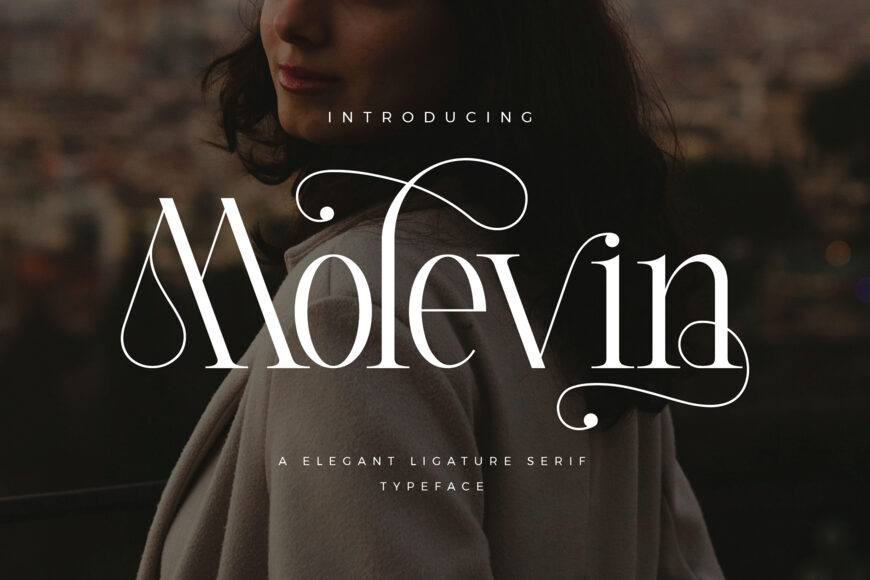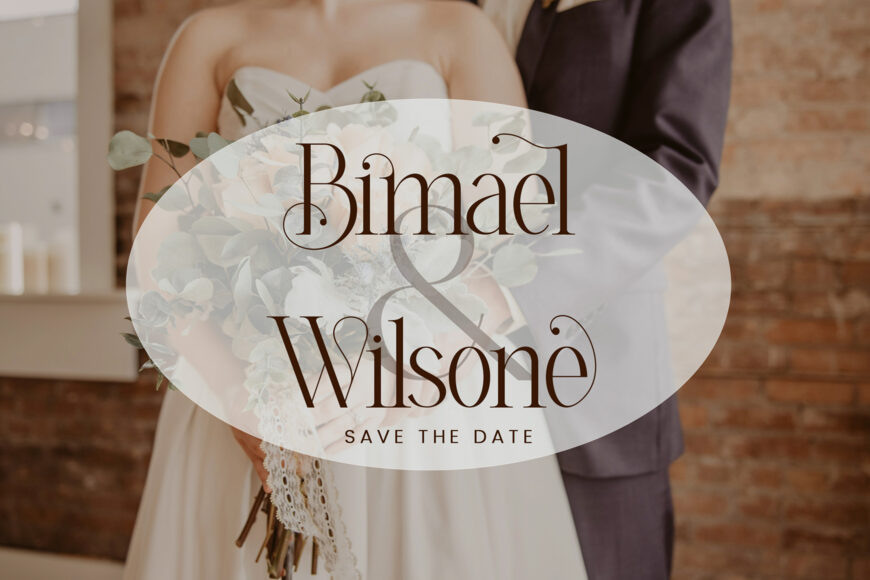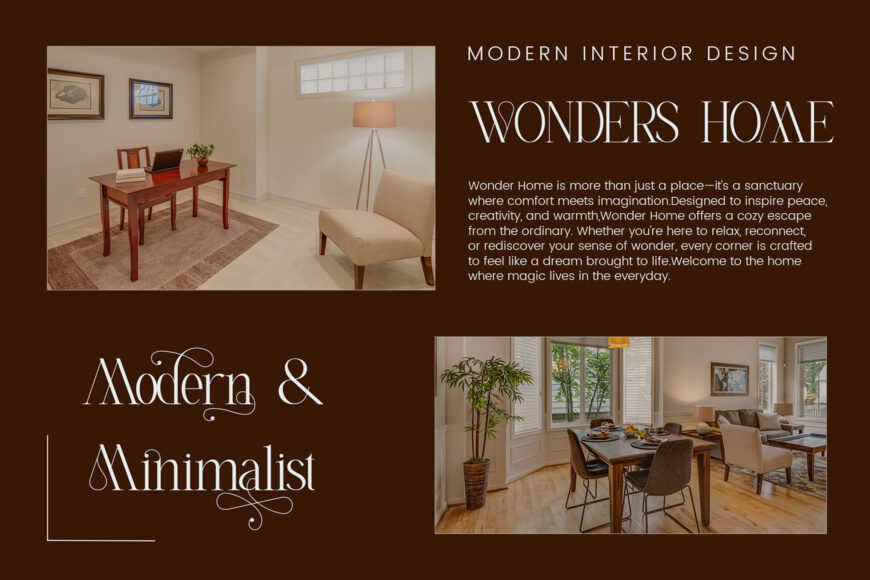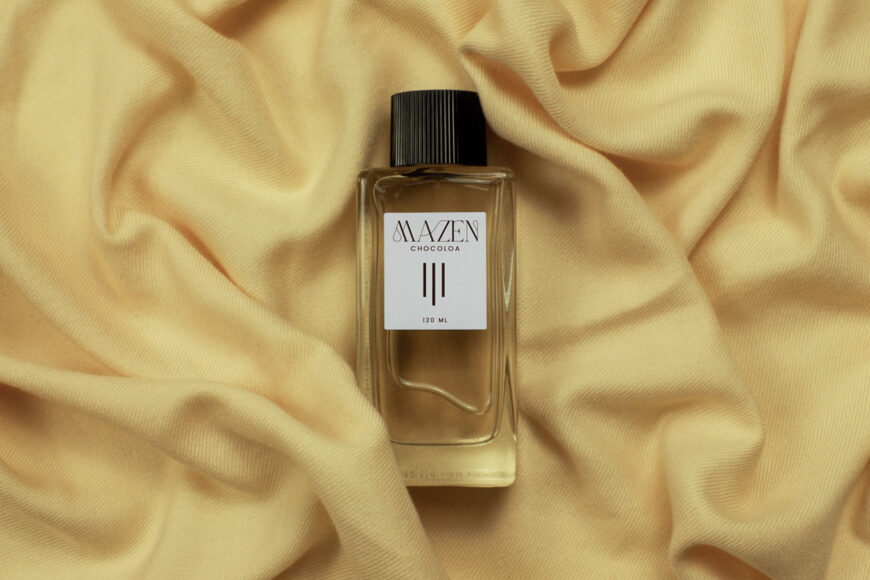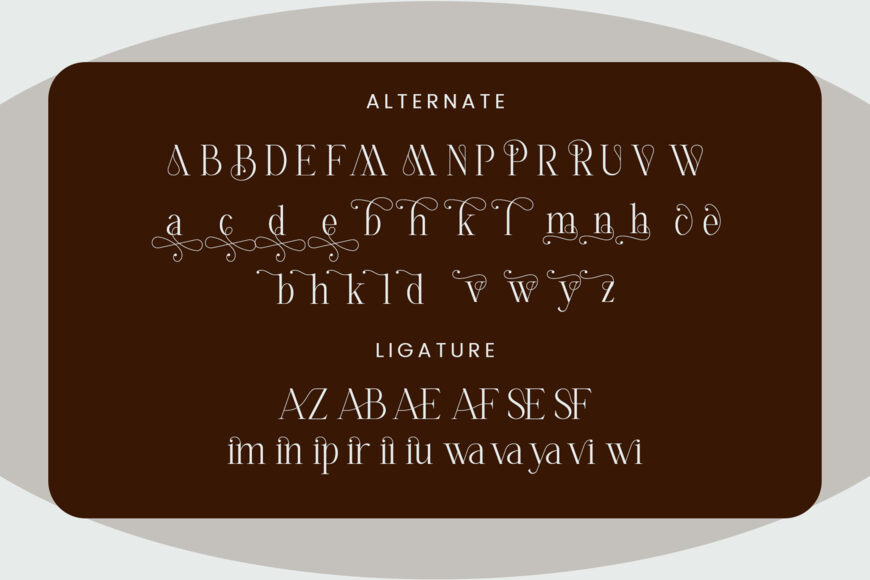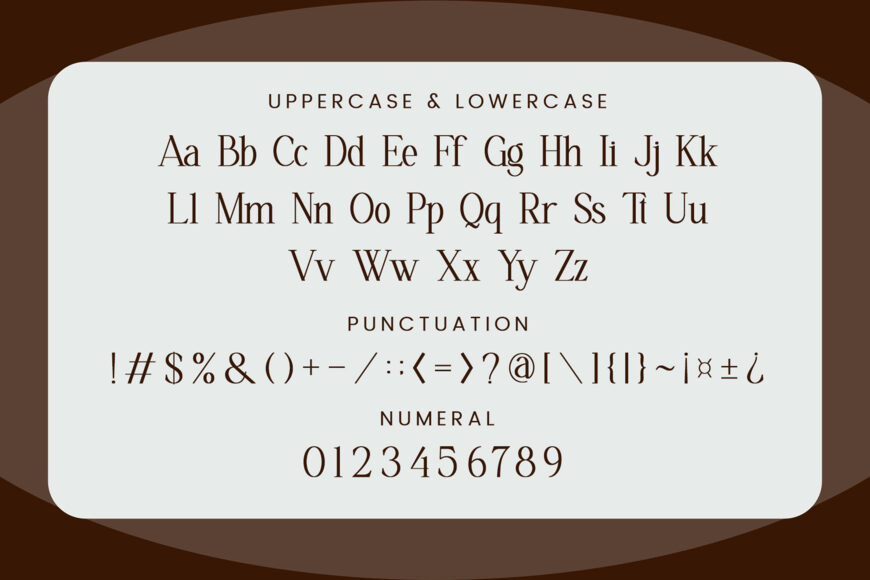
Molevin Font
Molevin is an elegant serif typeface by Aqeel Art, blending modern sophistication with subtle vintage charm. Its stylish letterforms, refined ligatures, and decorative alternates make it ideal for logos, wedding invitations, branding, editorial titles, and luxury packaging.